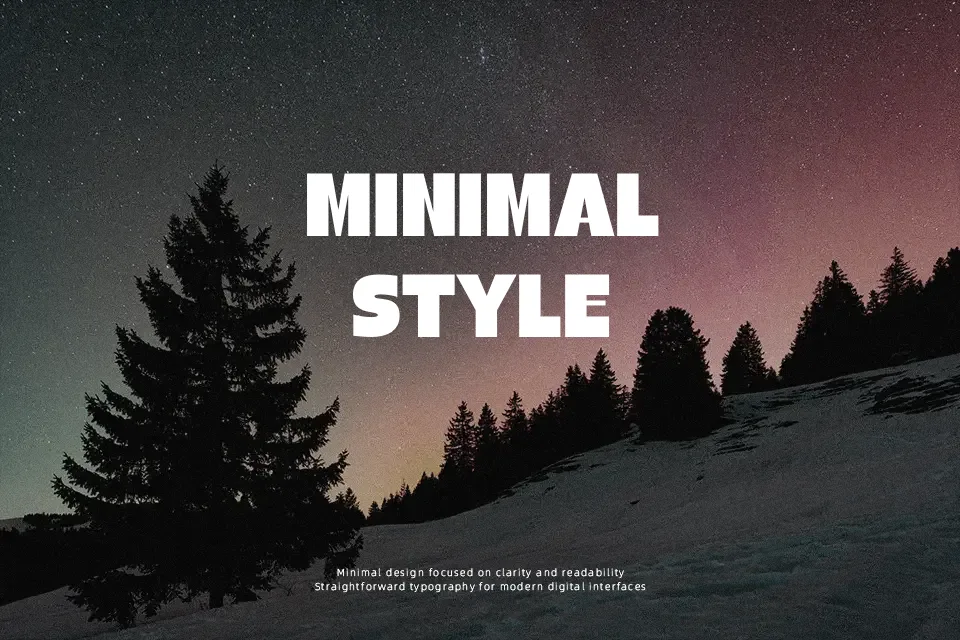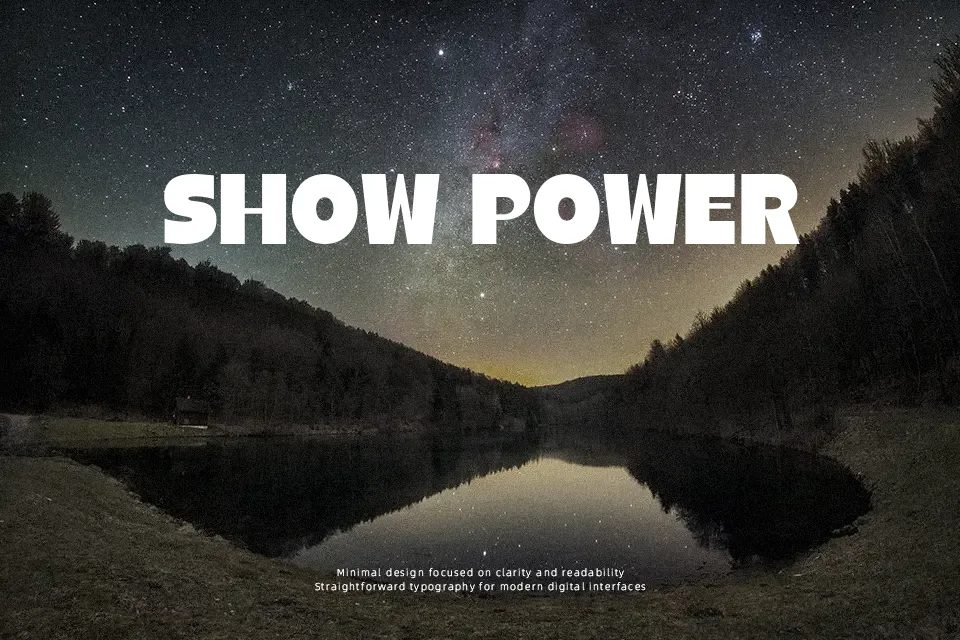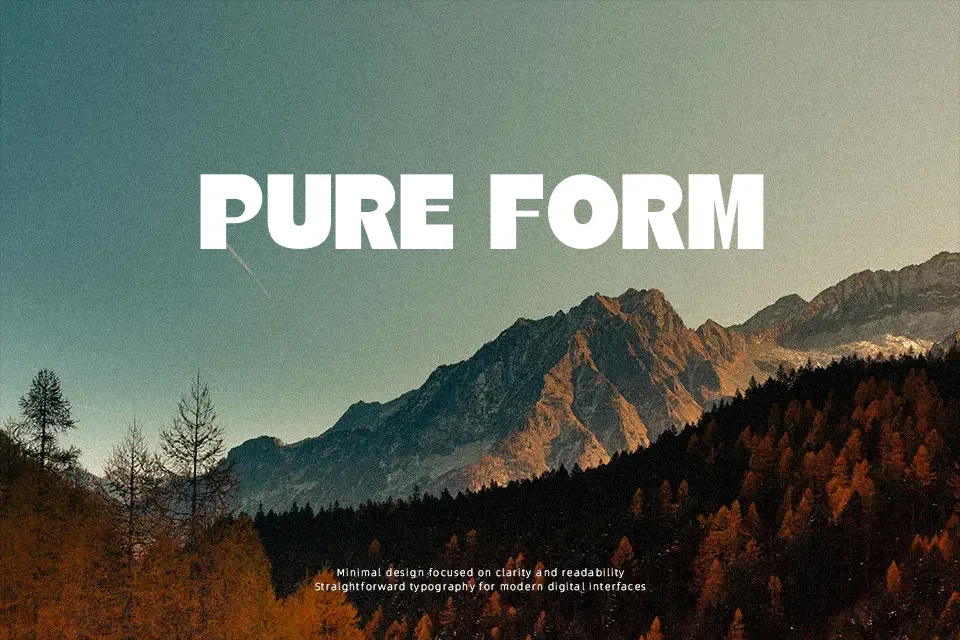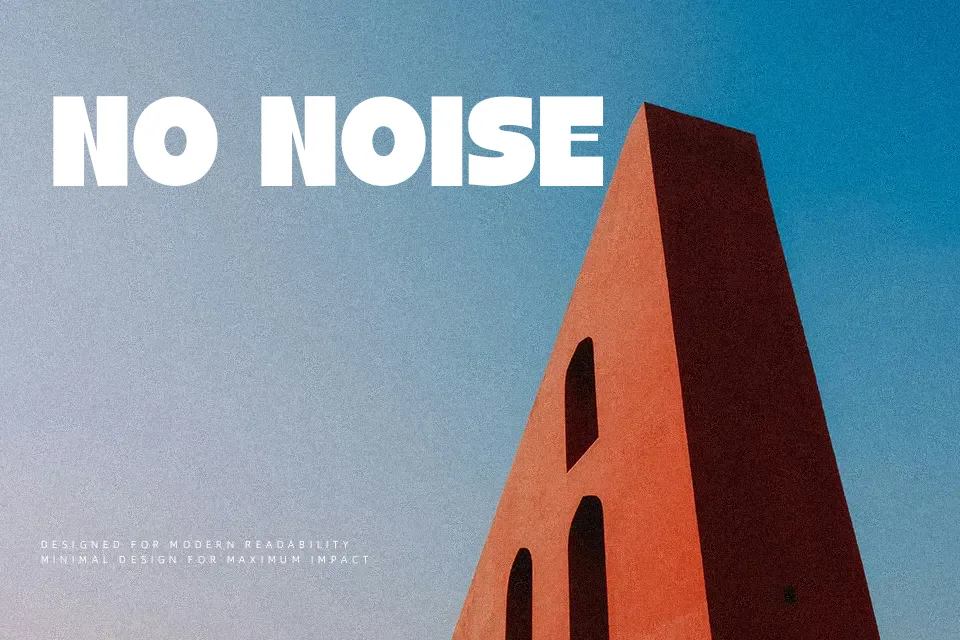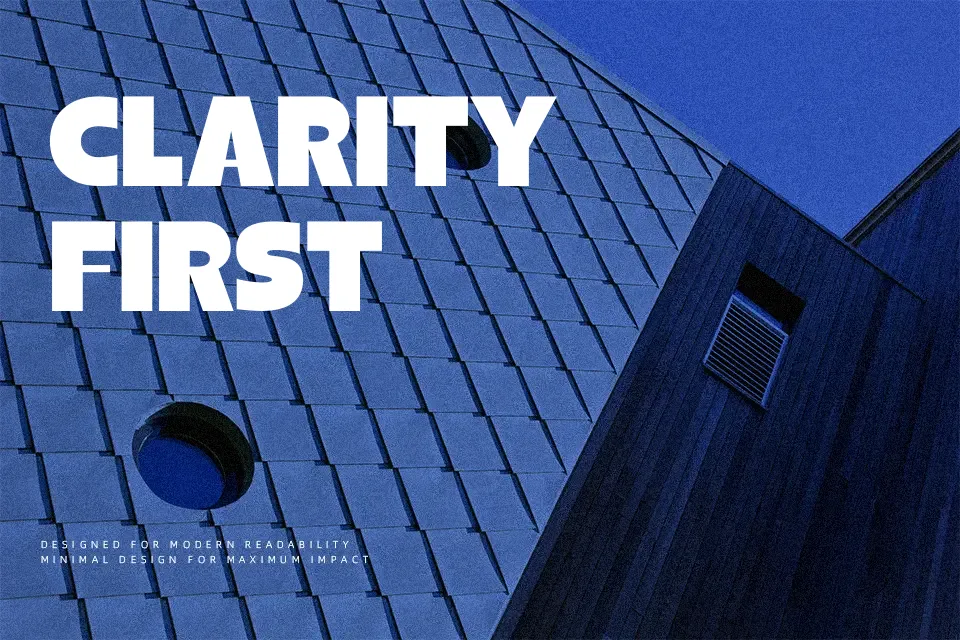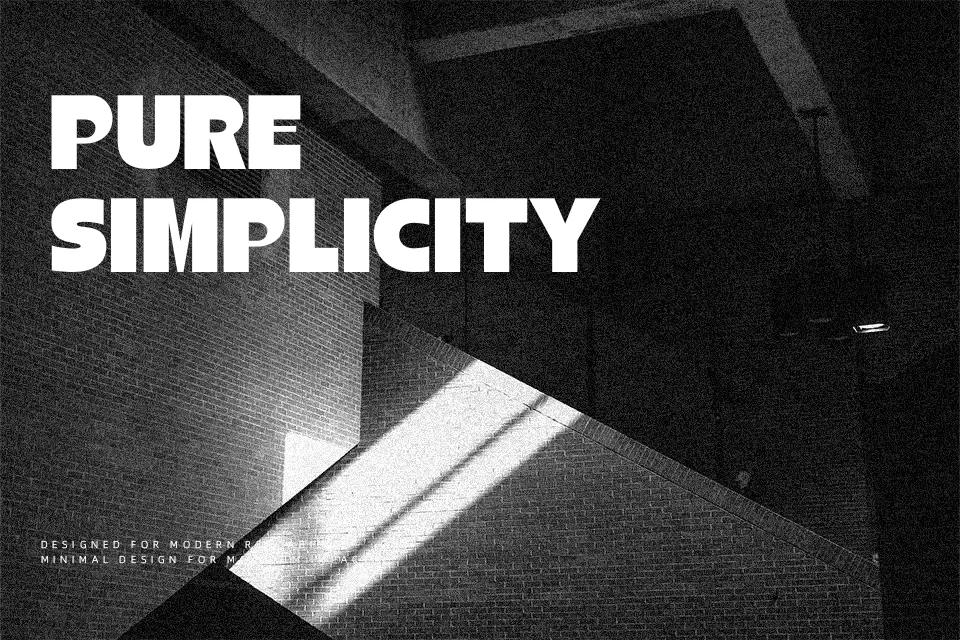
Boldiva Font
Designed by Graphicfresh
Boldiva brings a heavy, rounded structure combined with smooth terminals to create an undeniably nostalgic aesthetic. The thick strokes and tight letter spacing give this display sans-serif a commanding yet approachable presence, reminiscent of classic 70s groove and 80s pop culture. It shines when applied to streetwear apparel tags, vibrant vinyl record sleeves, or nostalgic diner menus where personality matters more than subtle elegance. However, because of its substantial weight and distinct character, it struggles in long paragraphs or small user interface components where readability becomes compromised. Compared to traditional geometric sans-serifs, Boldiva trades clinical precision for warm, bouncy curves, delivering instant visual energy to large-scale headlines.
Vibrant streetwear apparel branding
Nostalgic vinyl record sleeves
Eye-catching event posters
Large-scale headline typography
Dense body text or editorial layouts
Small user interface components
Formal corporate identities
Perfect for branding, fashion, and headline, with a bold and display style.